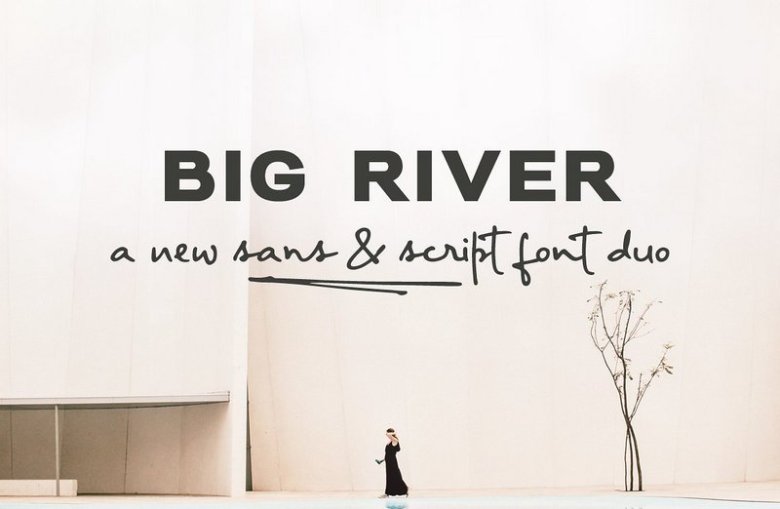
Big River Font Family
A new sans & script font duo. Introducing Big River! It is designed and shared by Ana’s Fonts. Big River is an elegant sans serif and handwritten font duo with lots of extras. It includes: A wide sans serif font in three weights (with caps and small caps); A handwritten font with a regular and slant version, and bonus swashes to give your designs a more natural look.